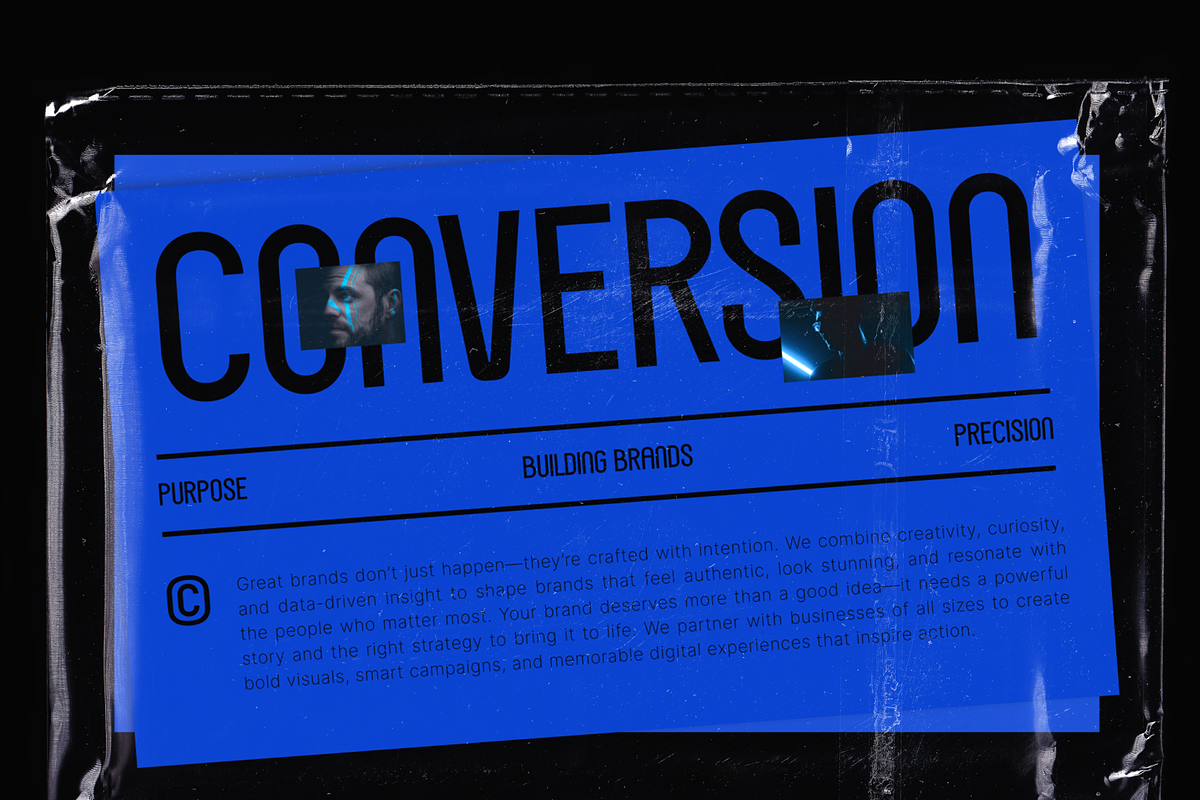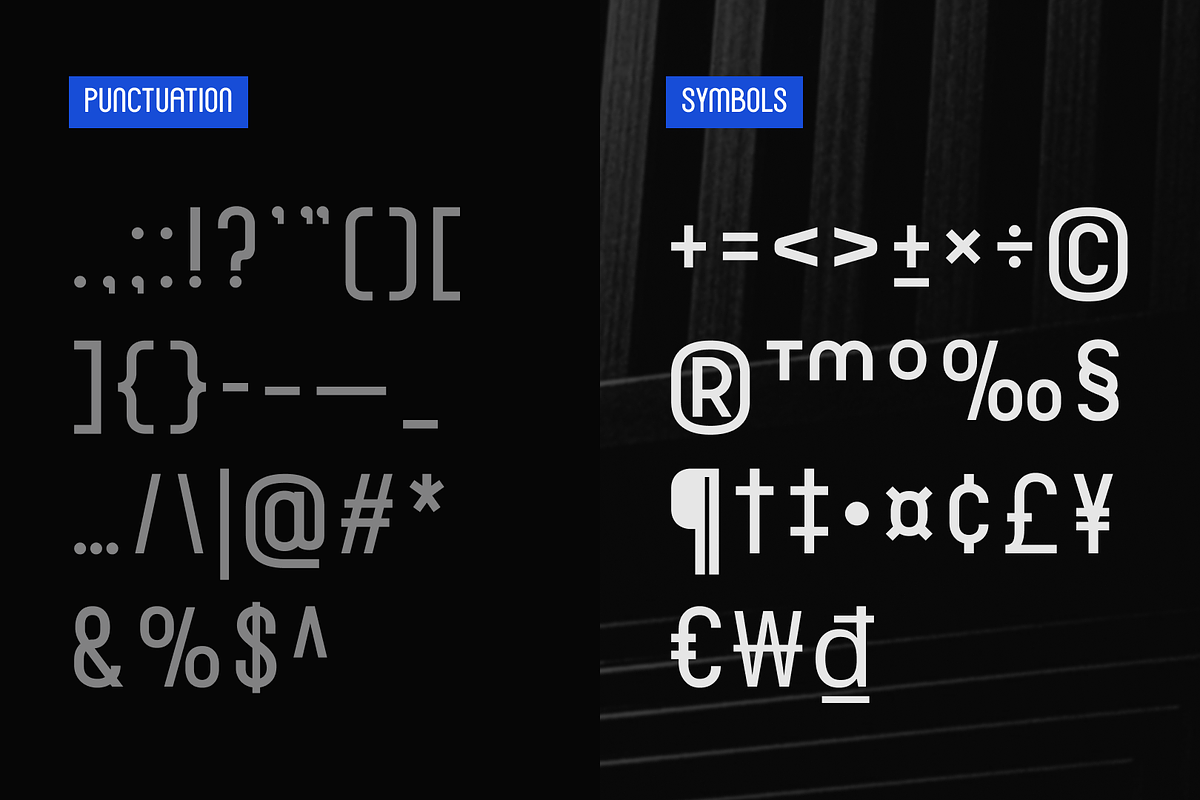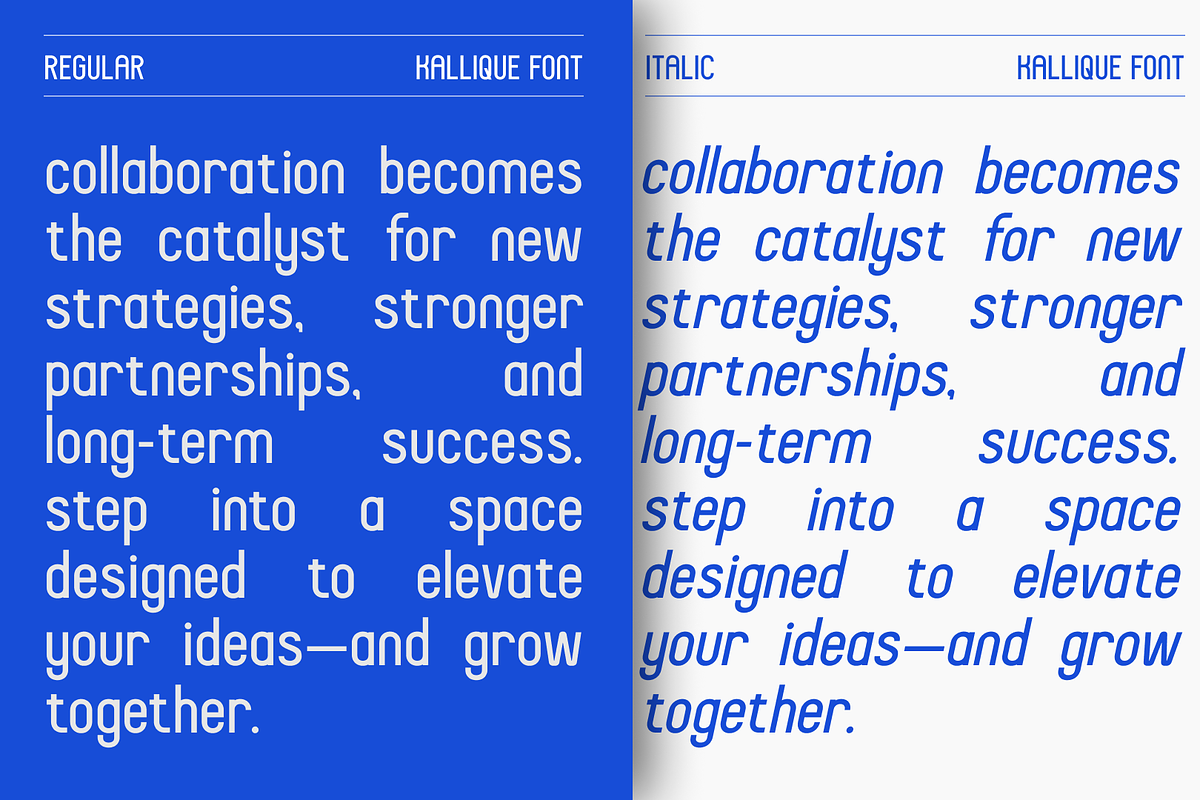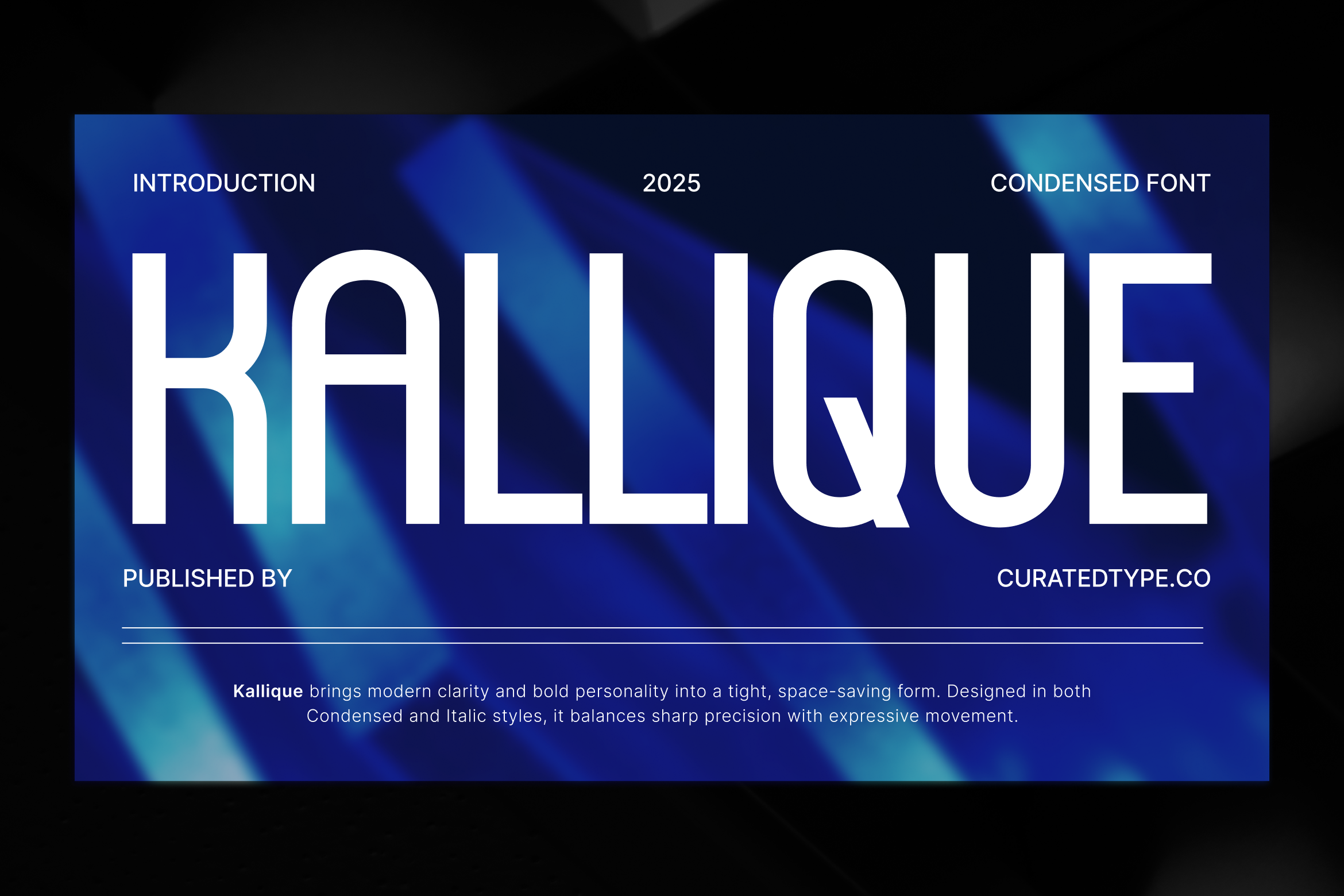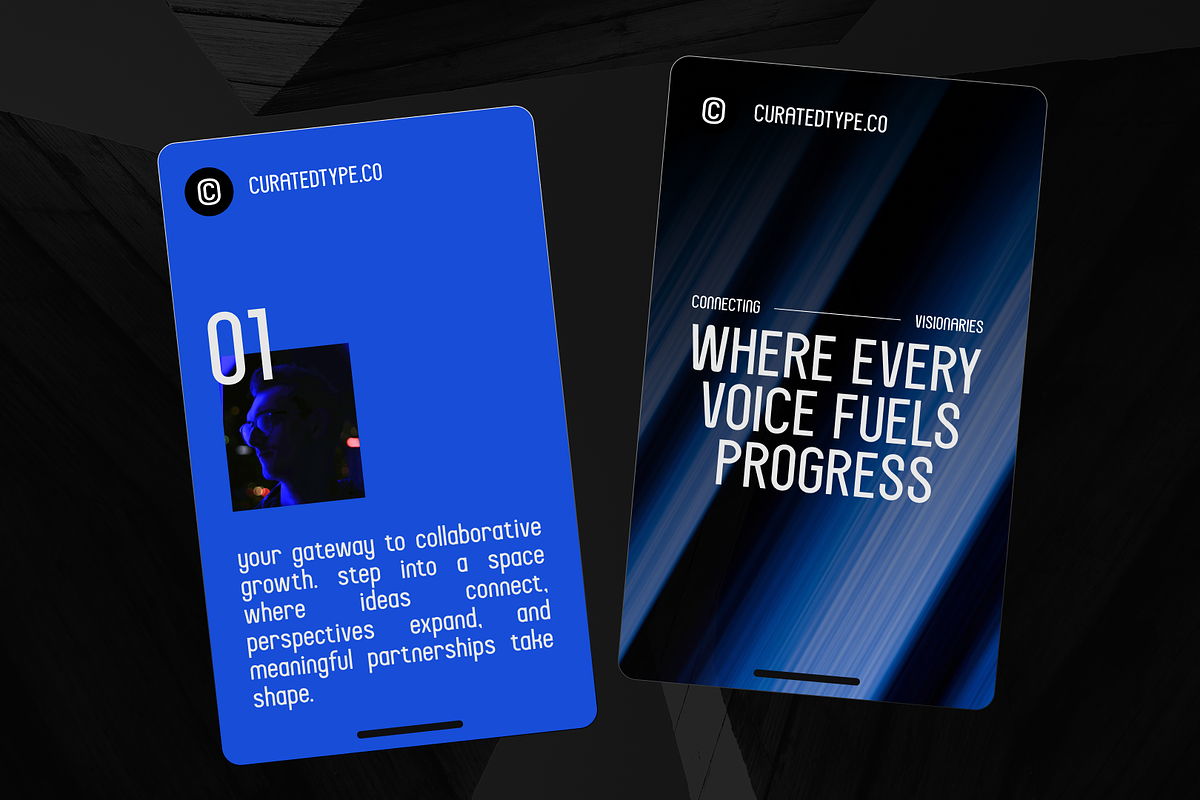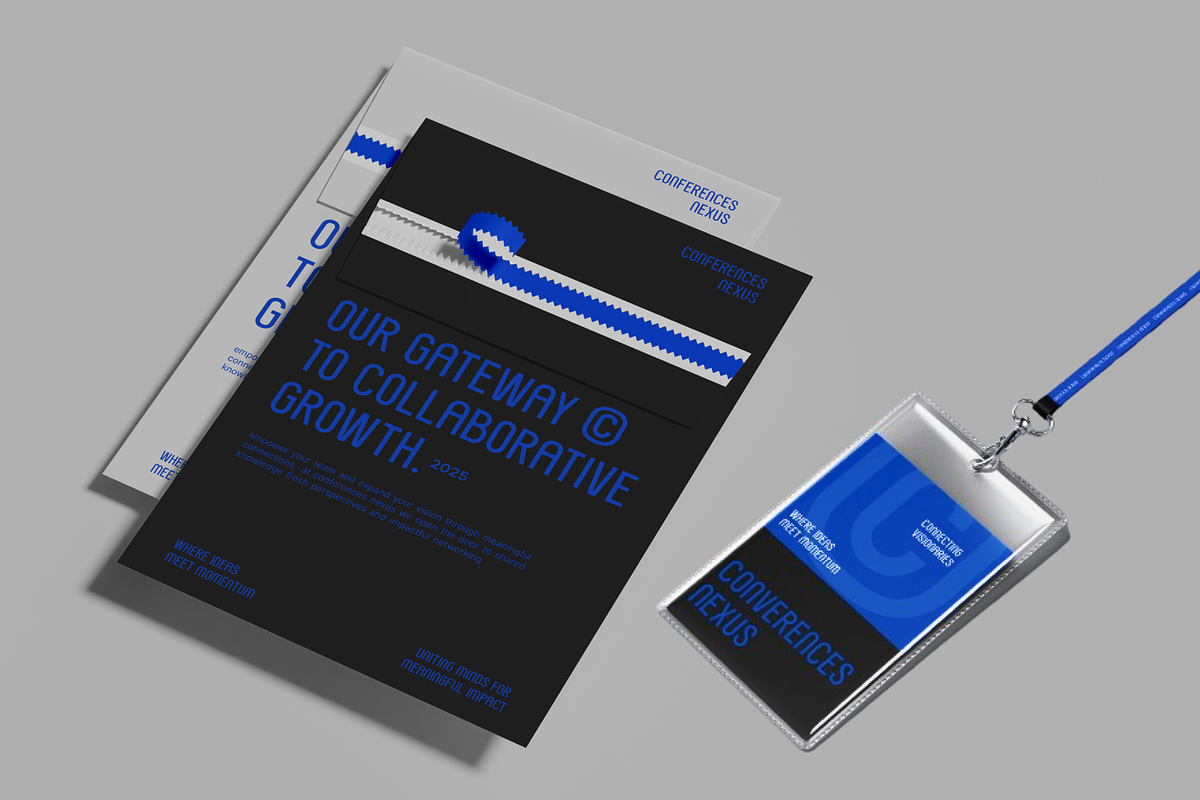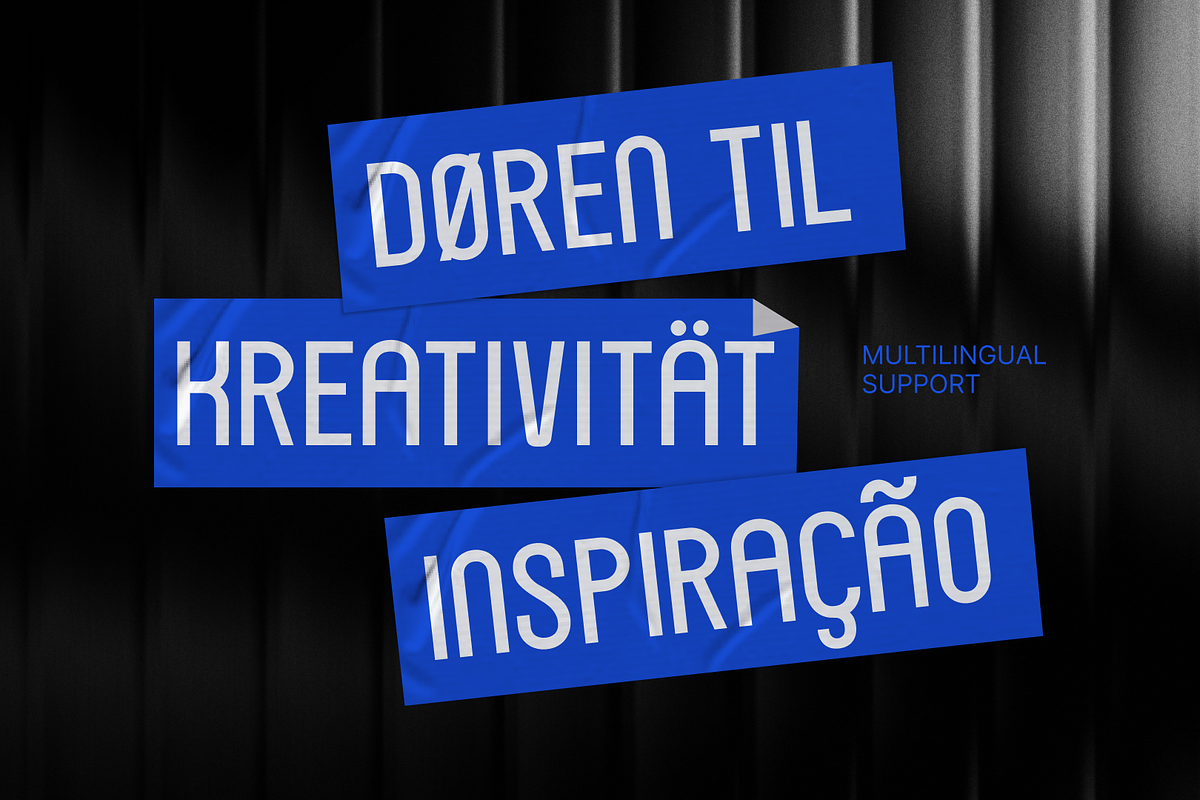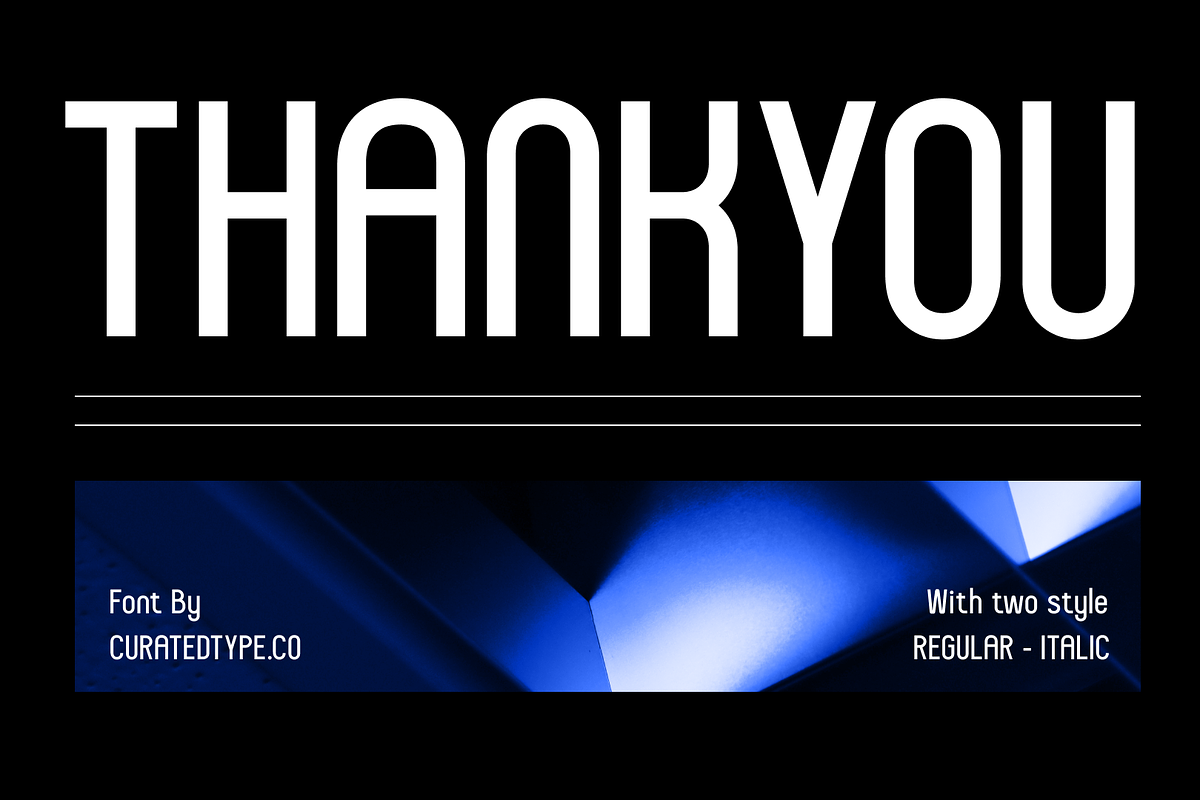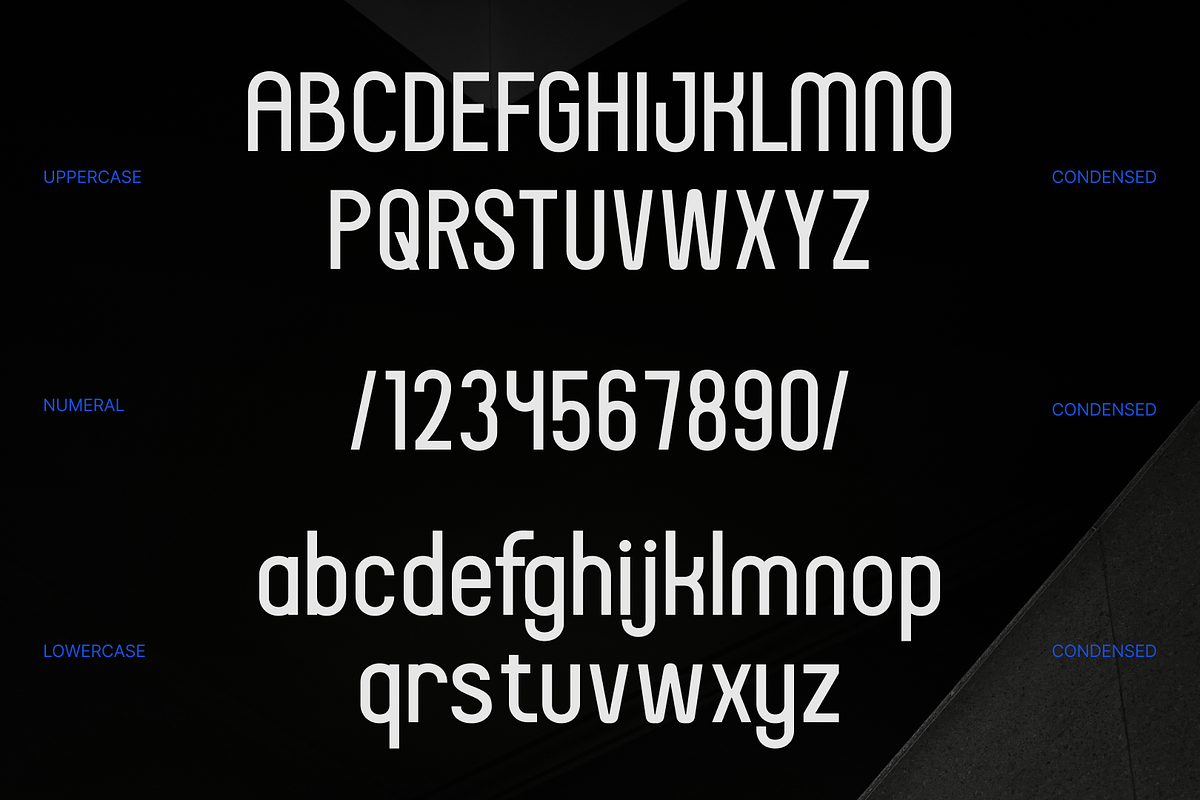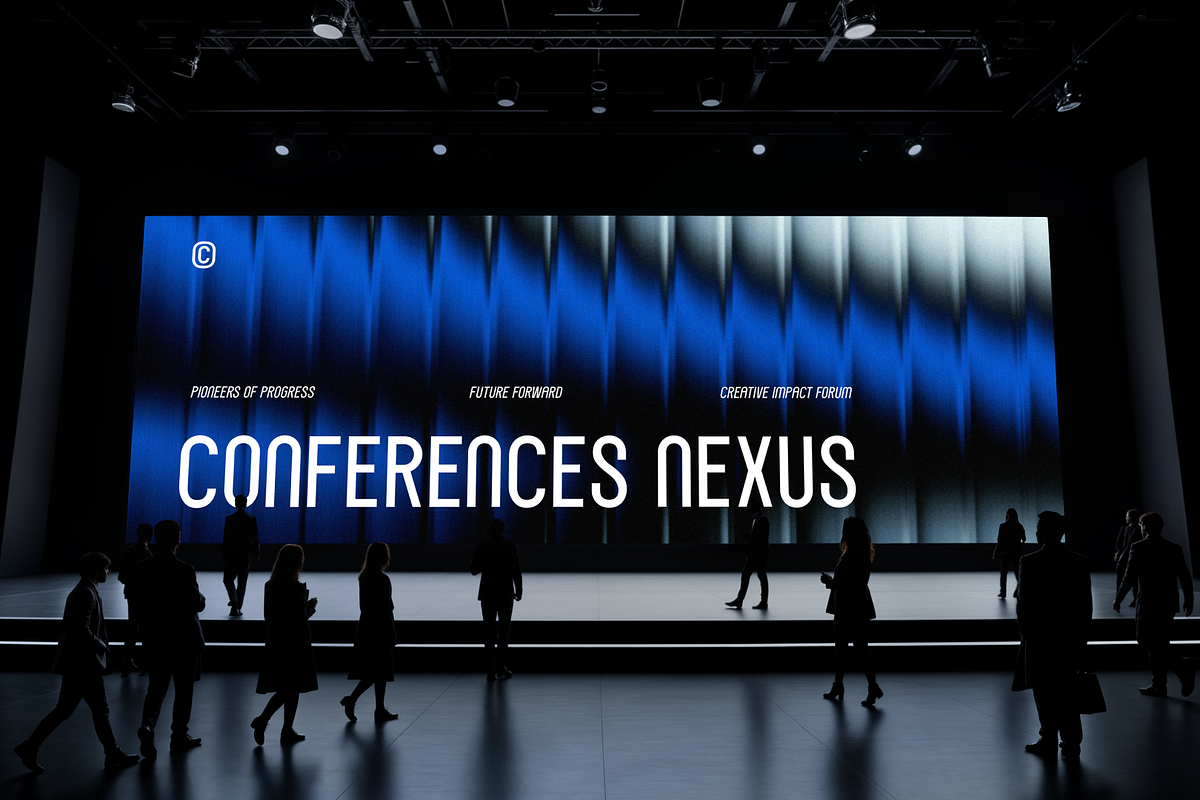
Kallique - Condensed Sans Font
Meet Kallique, a typeface that blends modern simplicity with a warm, approachable personality. Its defining feature is its bold, monolinear strokes that finish in perfectly rounded terminals. This design choice gives Kallique a friendly, soft-but-confident feel, making it stand out without being sharp or aggressive. It's the perfect choice for logos, headlines, and any design needing a clean yet welcoming voice.
Kallique is a versatile display font packed with a full set of uppercase and lowercase letters, numerals, and essential punctuation. Its clean, geometric construction ensures excellent legibility, especially in display sizes. Use it to add a touch of modern friendliness to branding projects, user interfaces, packaging, posters, and social media graphics. Kallique is your go-to font for making a bold, simple, and stylish statement.
- 2 Styles Font : Regular, Italic
- Standard letter A-Z and a-z
- Numeral, Symbol, and Punctuations
- OpenType Feature